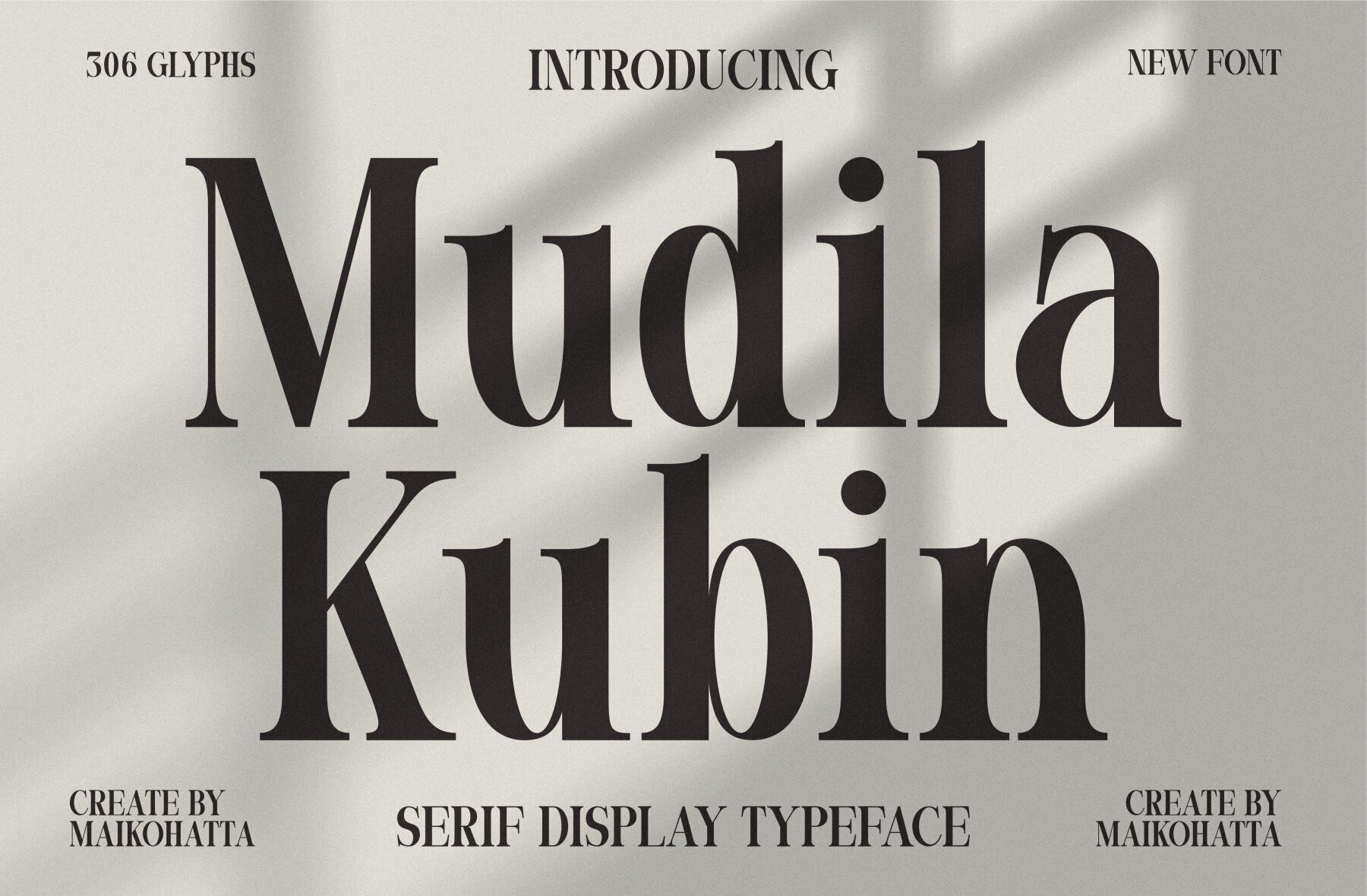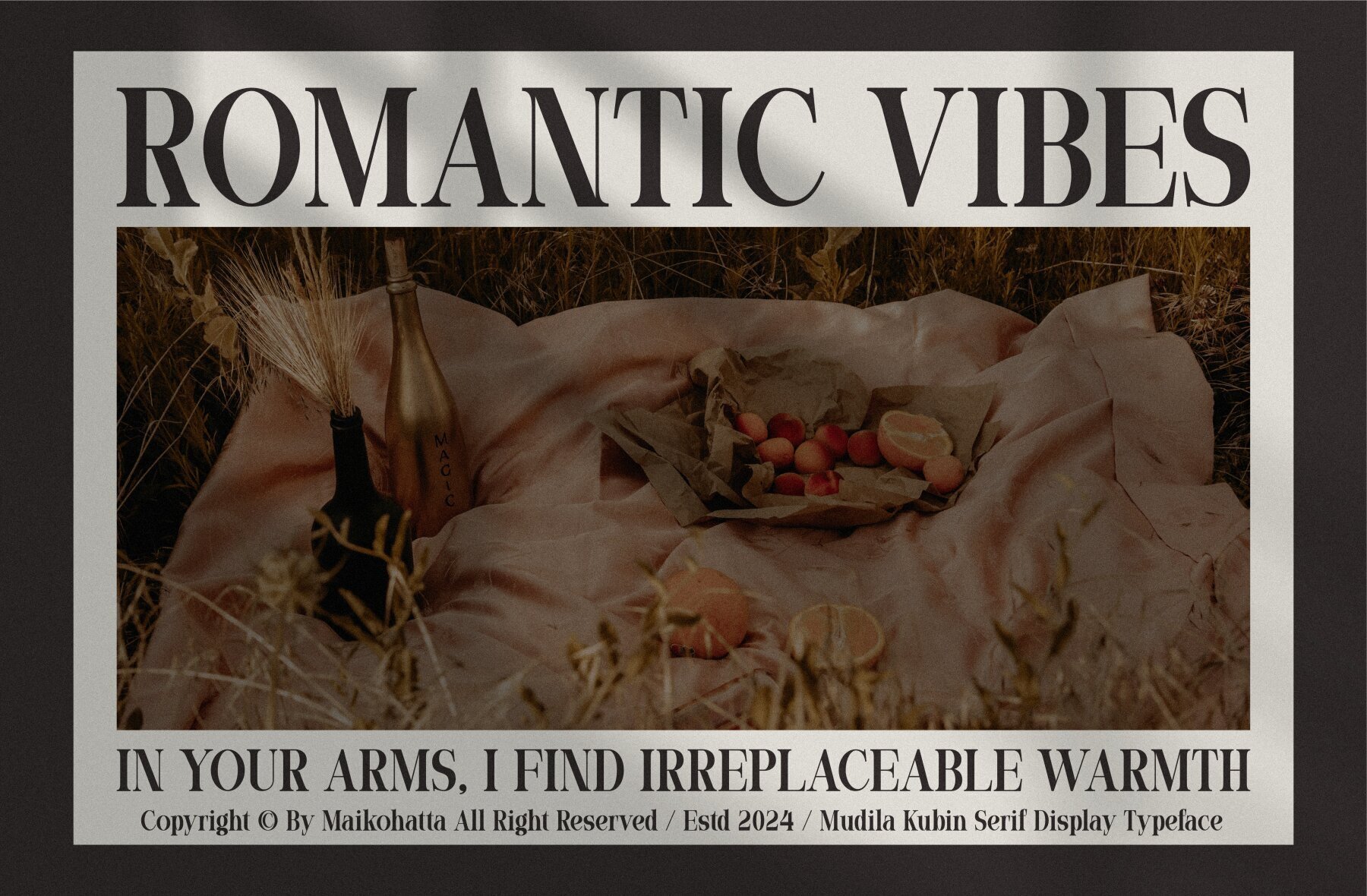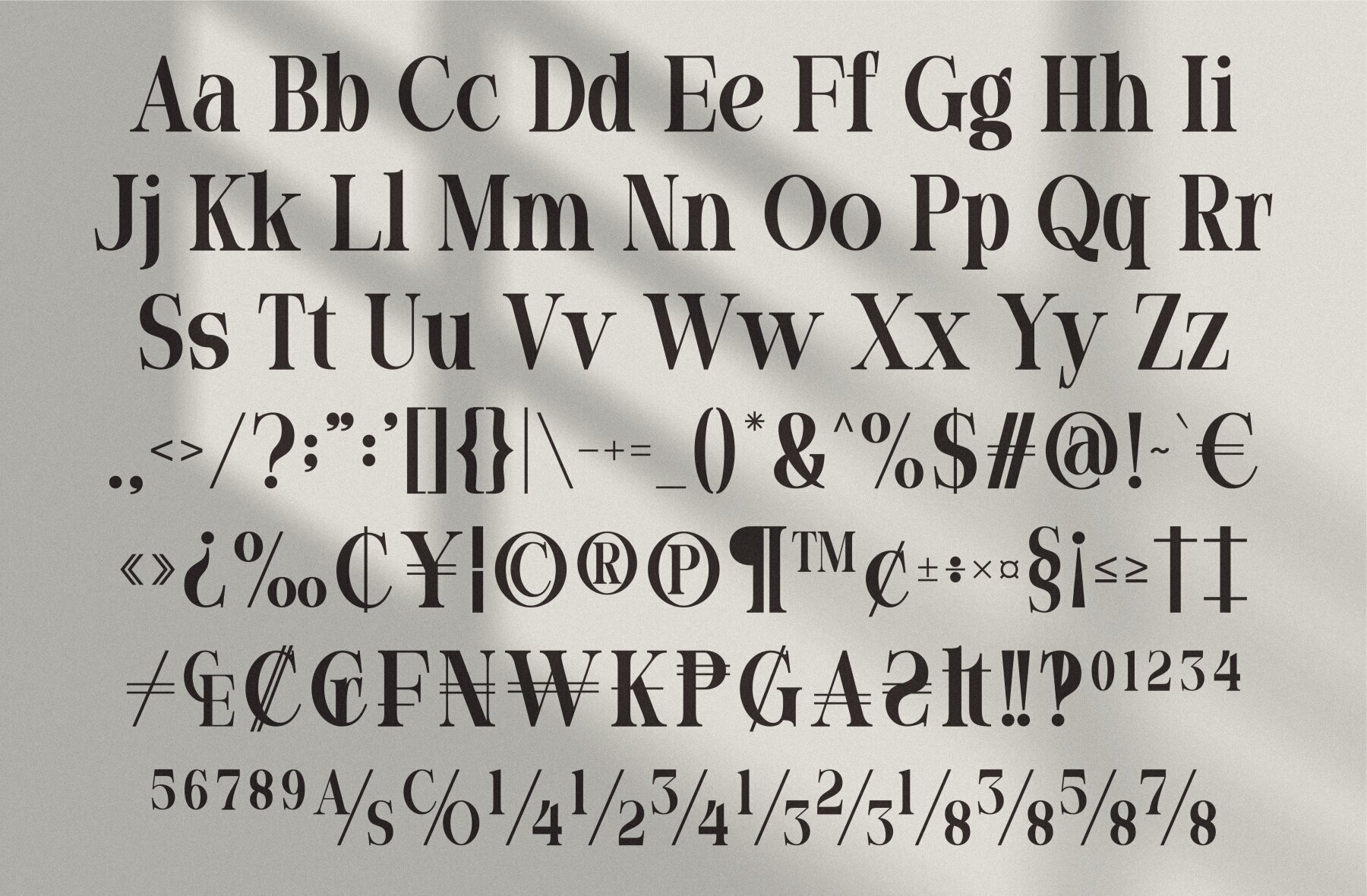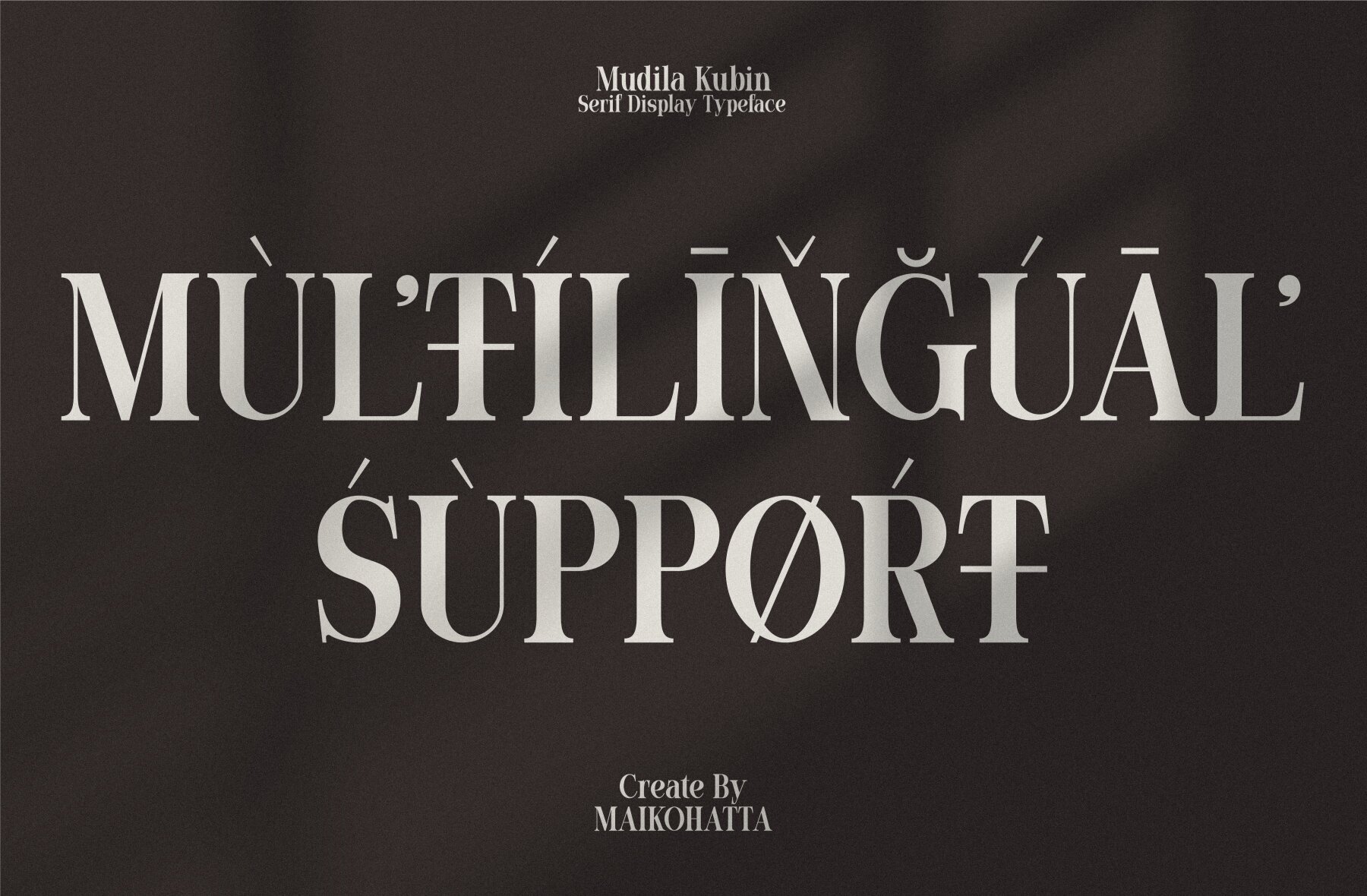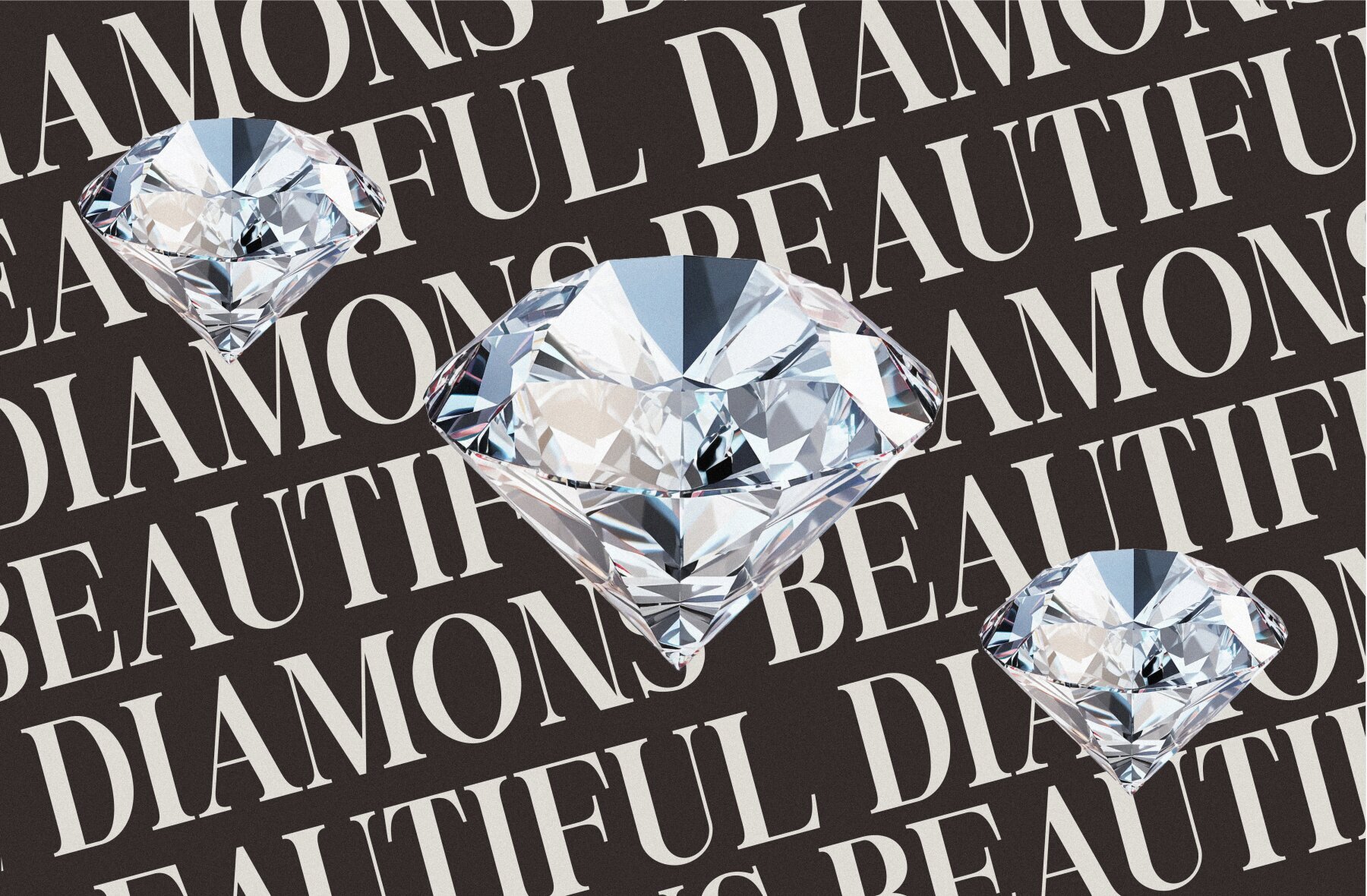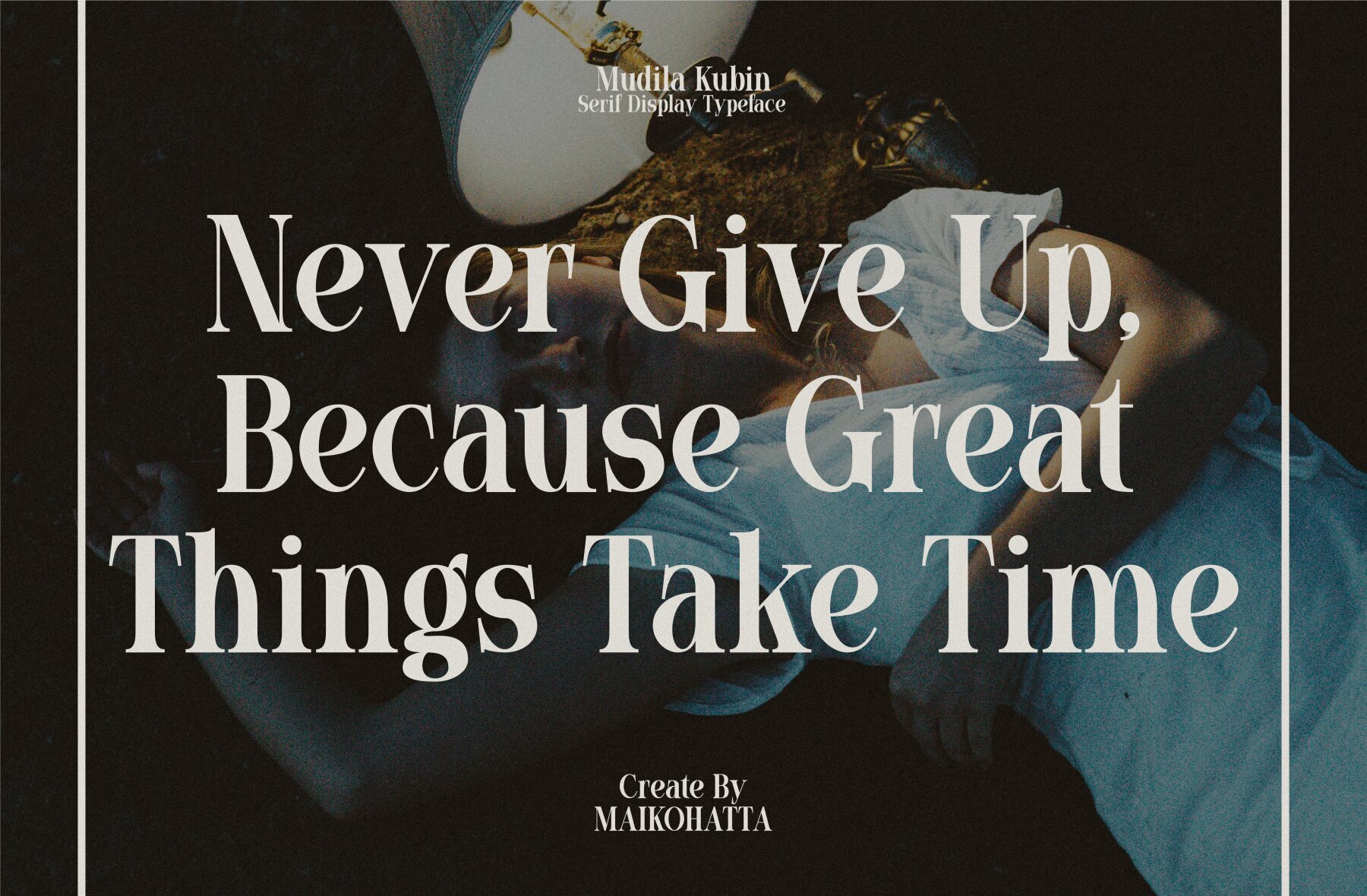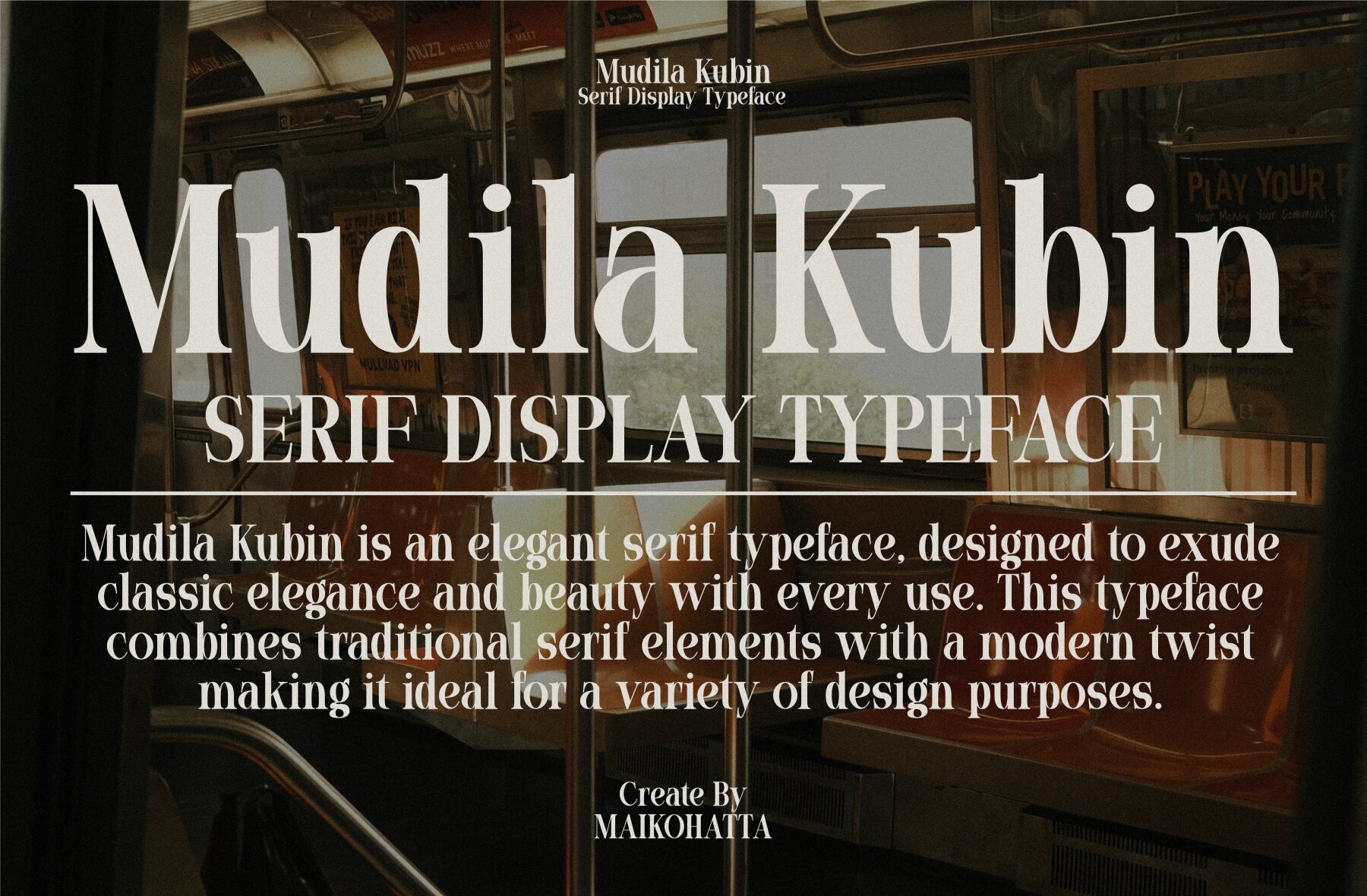
Mudila Kubin
Mudila Kubin is a sophisticated serif display typeface crafted by Maikohatta, designed to captivate with its balanced proportion of stroke thickness and fineness. Its modern serif style is known for the striking contrast between thick and thin lines, offering an understated elegance that stands out.Mudila Kubin: Elegant Serif Display Typeface
Features of Mudila Kubin